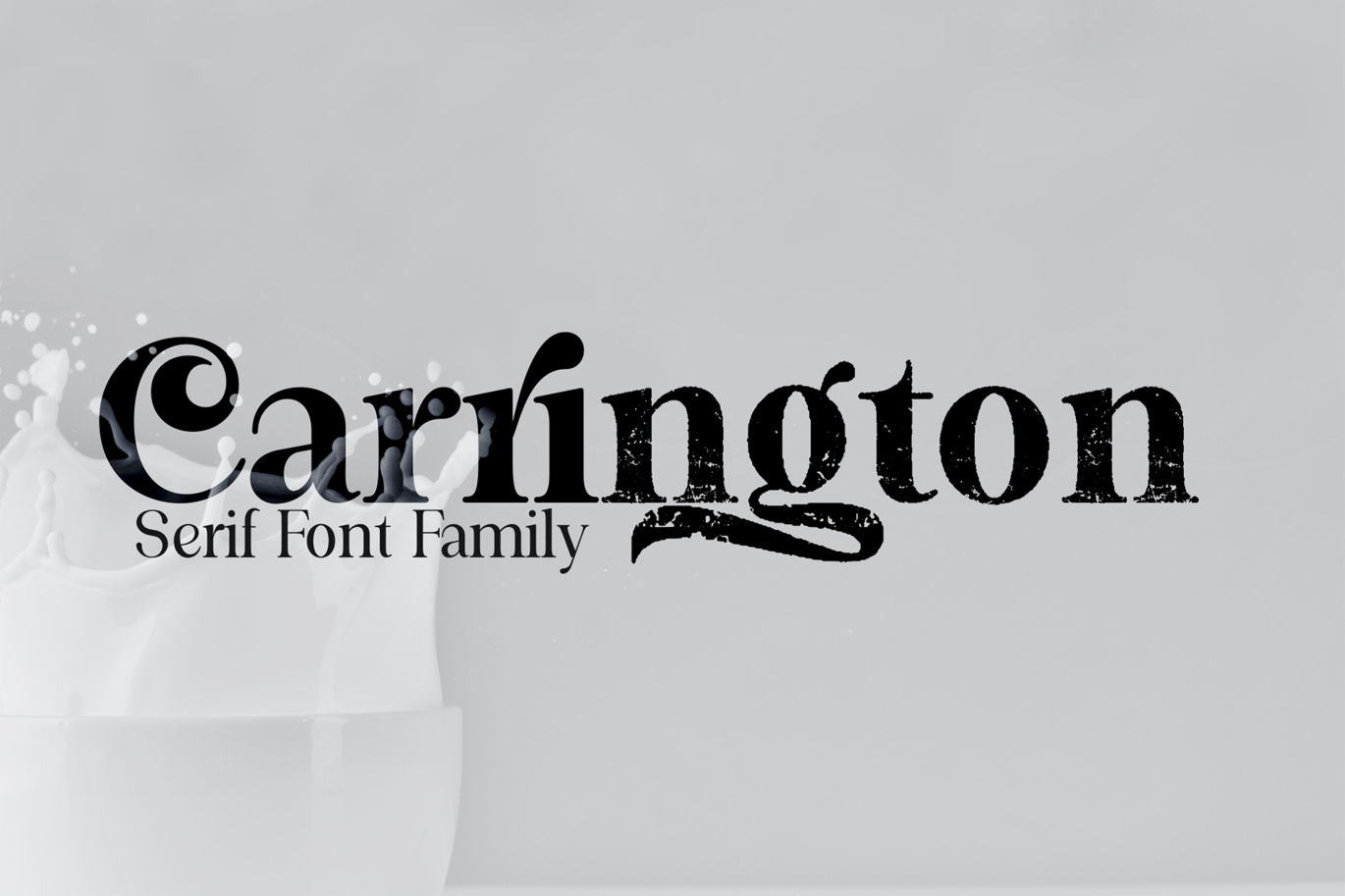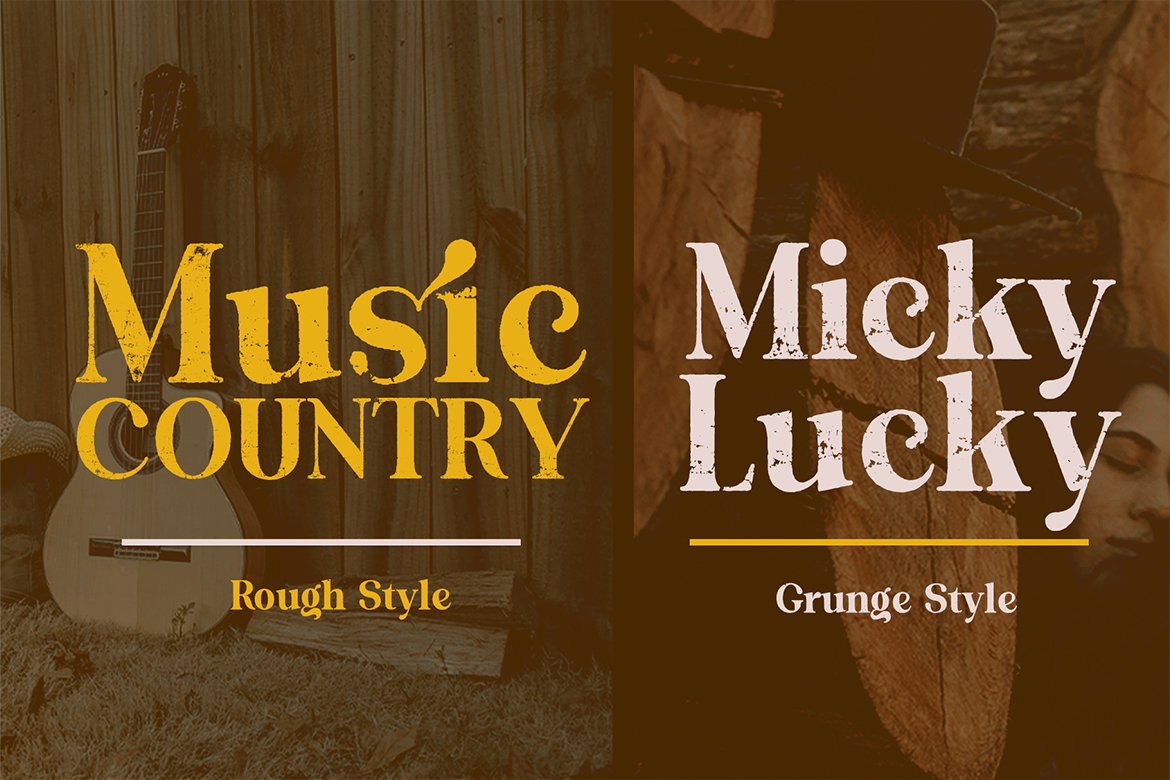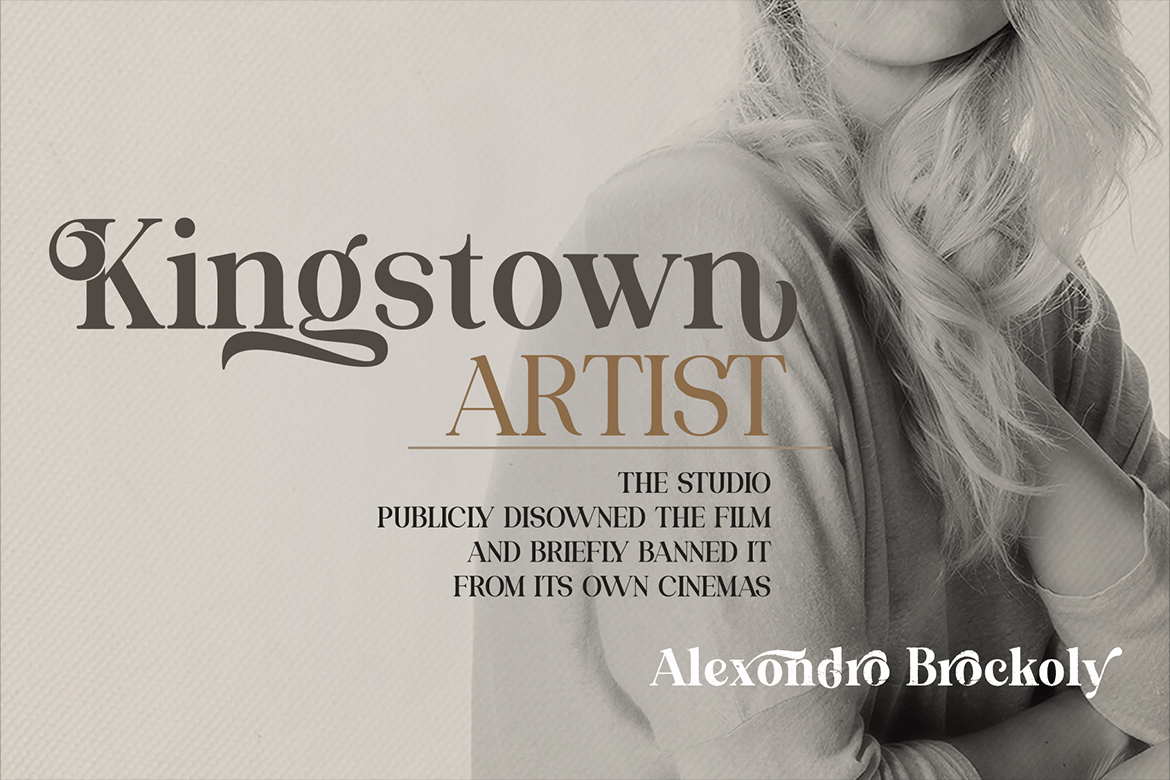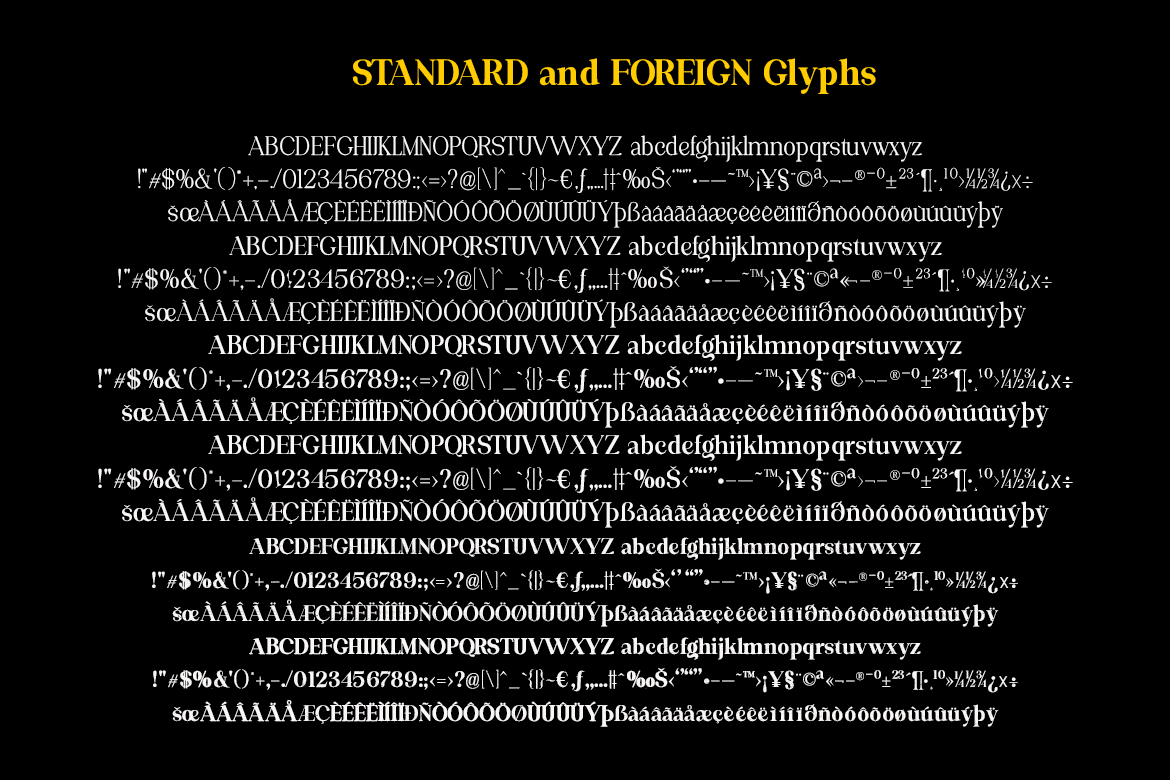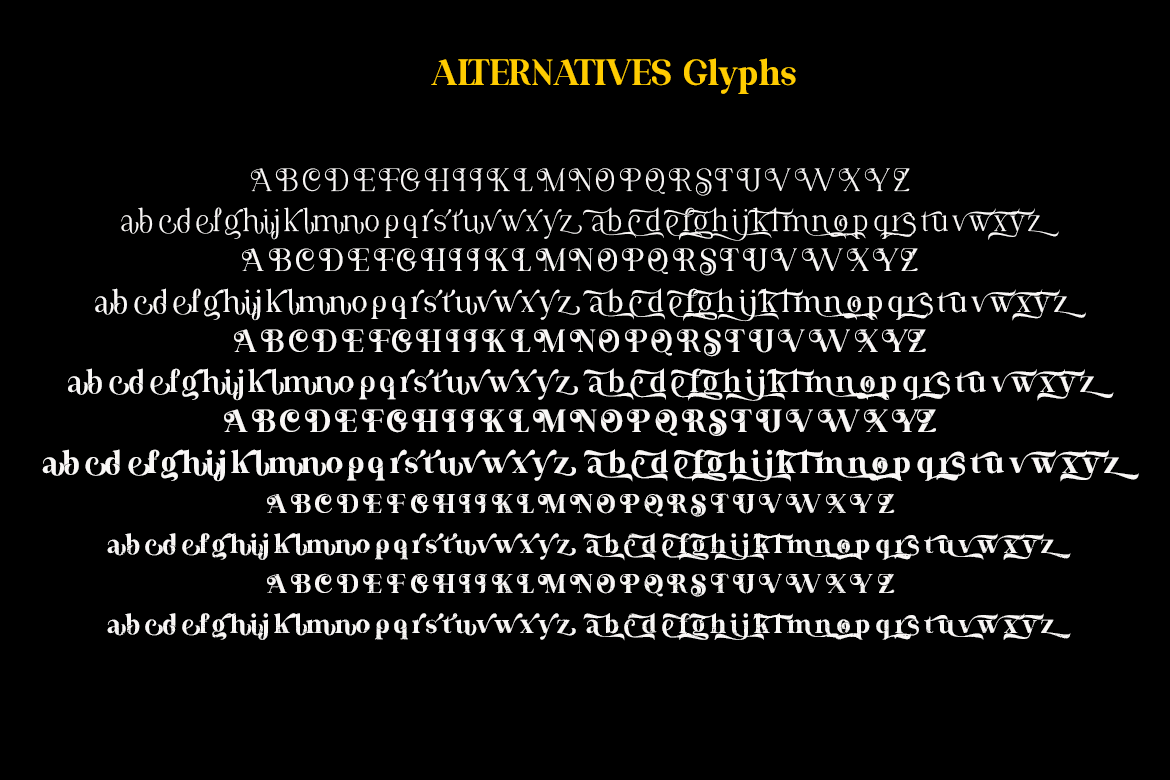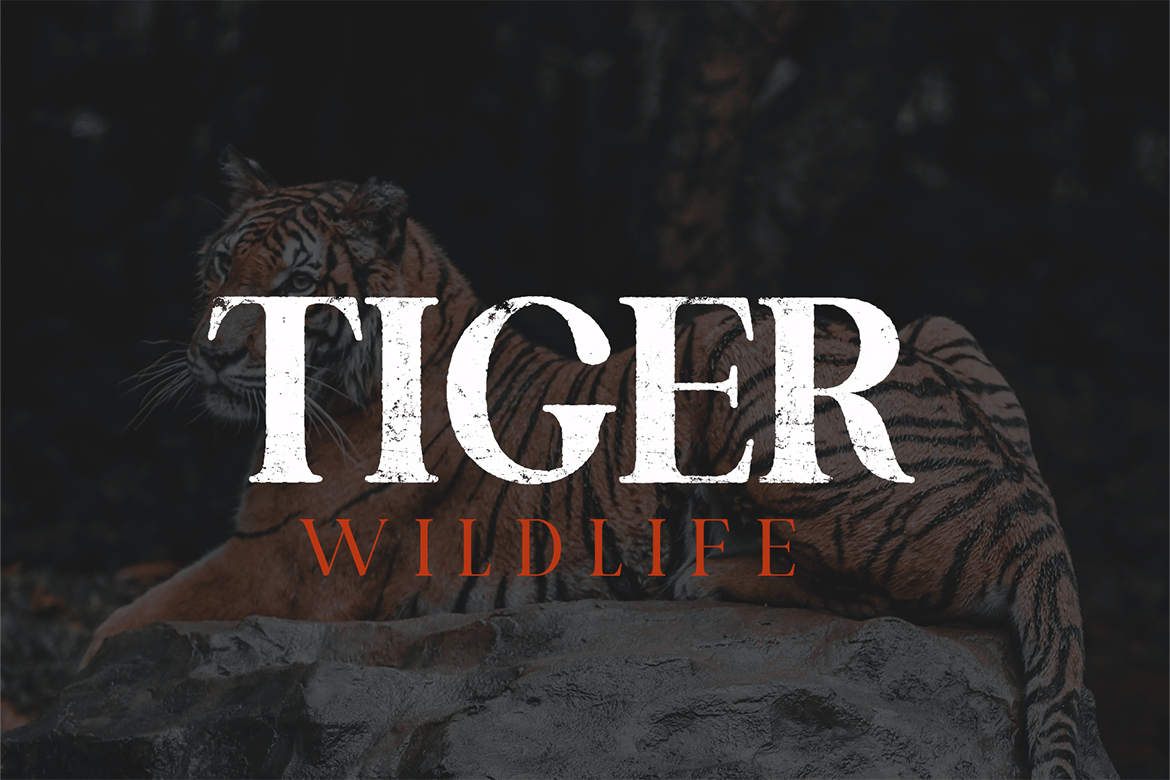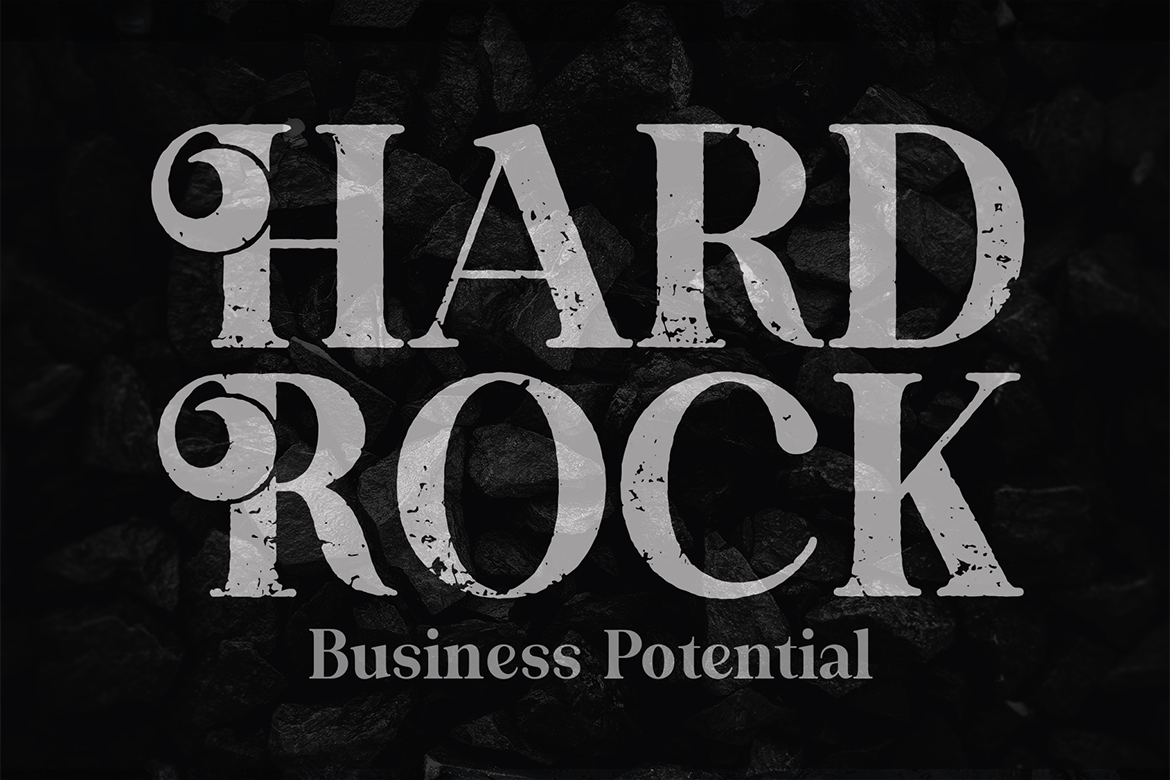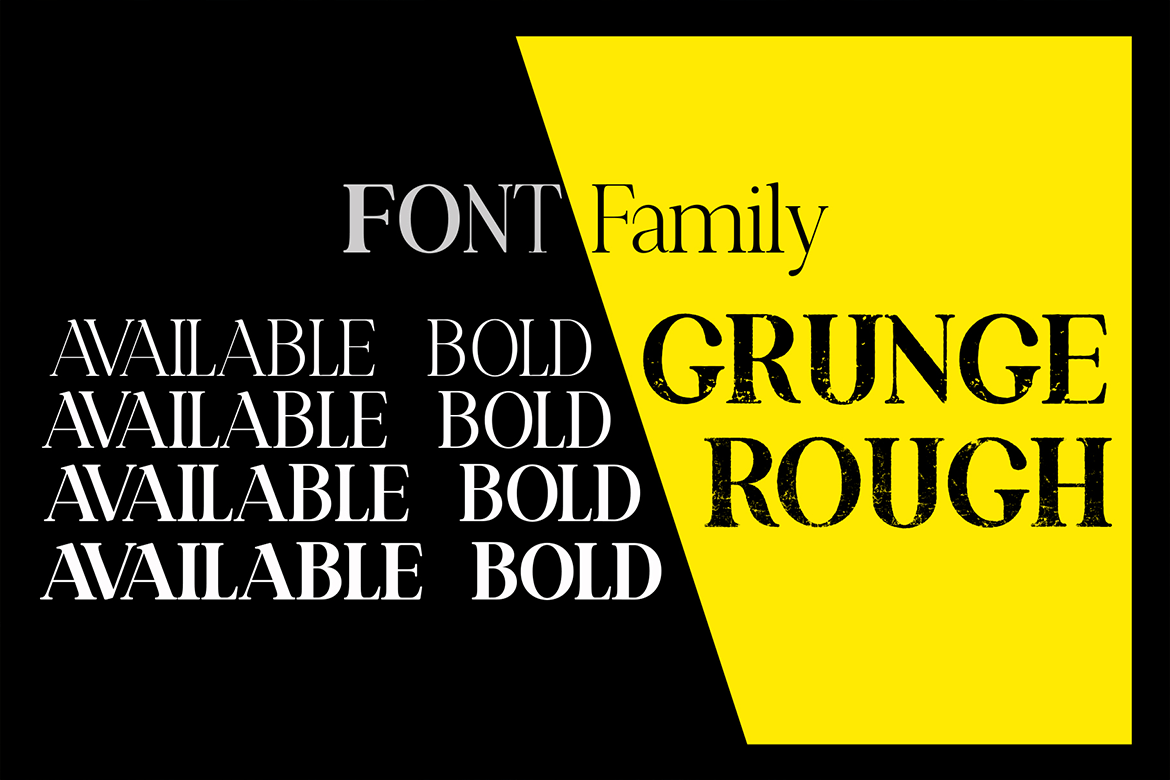
Carrington serif family font
Carrington is a Serif font family, which has a strong and bold character with 6 variants.
Carrington is a versatile typography filled with the character you want, Carrington has standard styles, Stylistic Alternates and ligatures. and includes upper and lower case letters, numbers and punctuation marks.
Multilingual support for various languages including: French, German, Spanish, Portuguese, Italian, Dutch, Finnish, Swedish, and more.